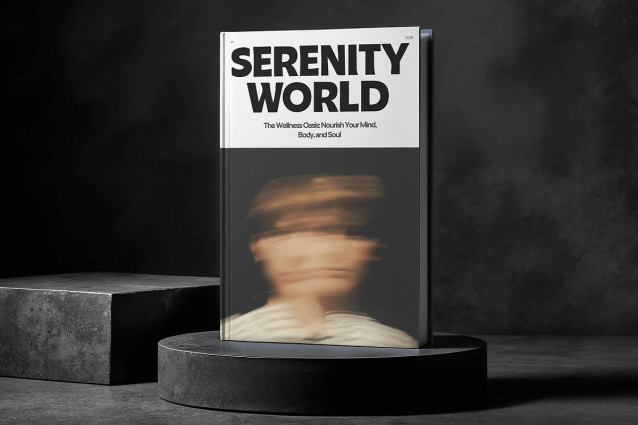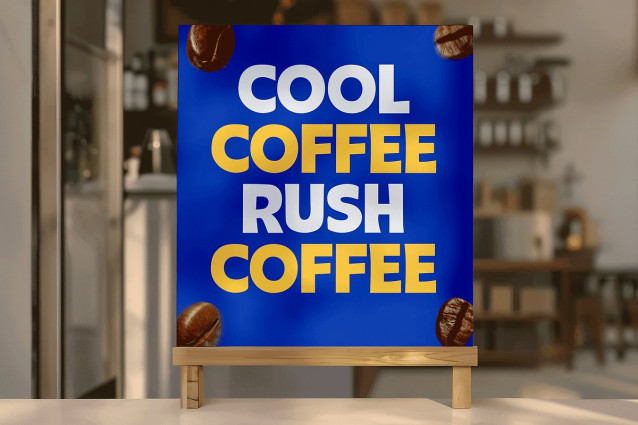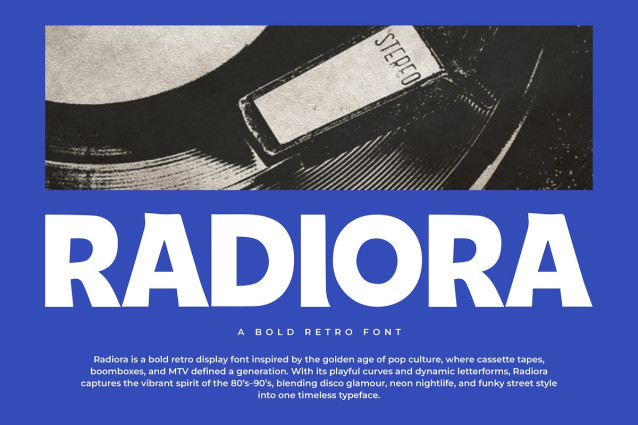
Radiora Font
Radiora Font is a bold retro font designed to capture the nostalgic charm of vintage typography with a modern twist. Its thick, rounded strokes and playful curves make it perfect for projects that demand both personality and impact.